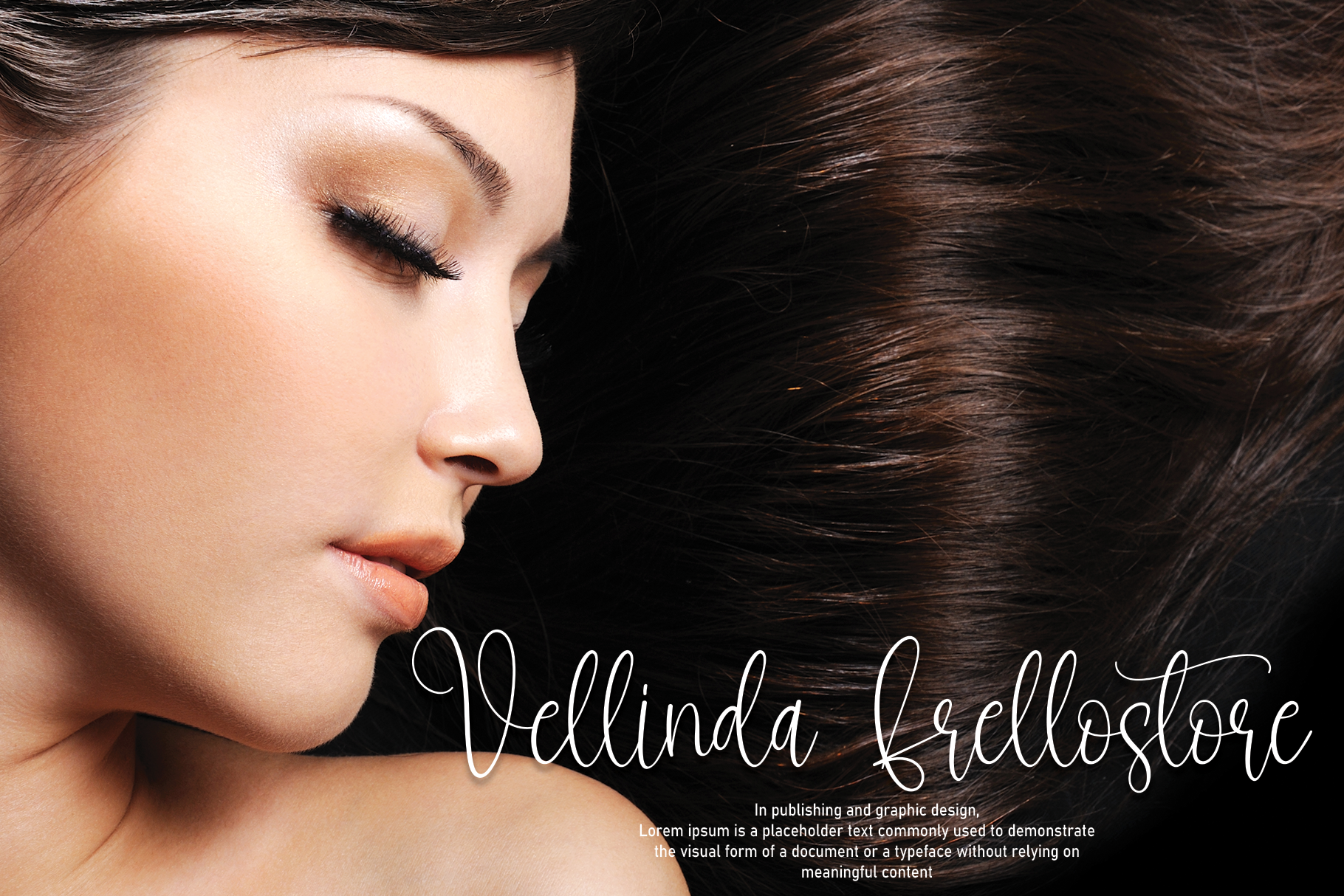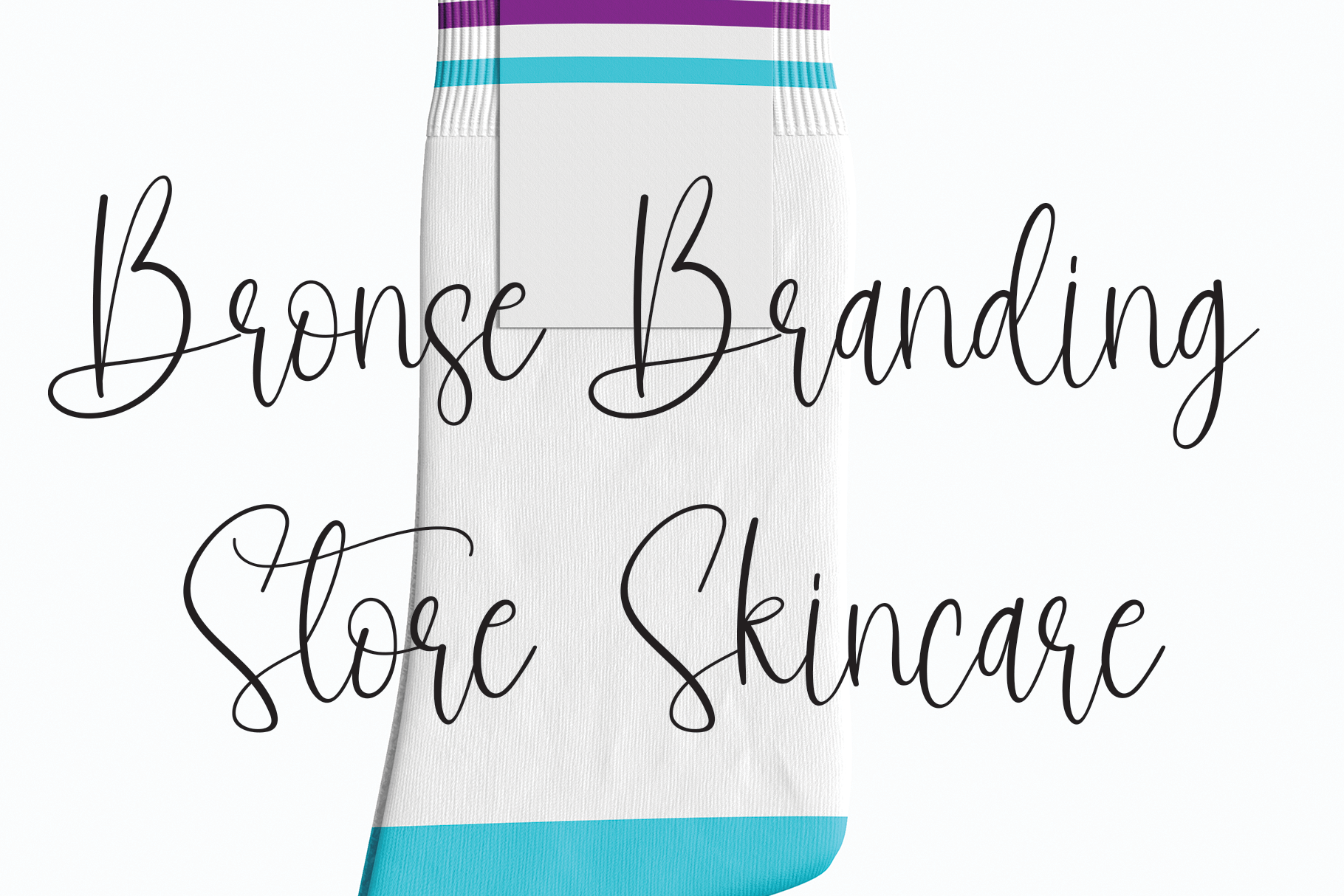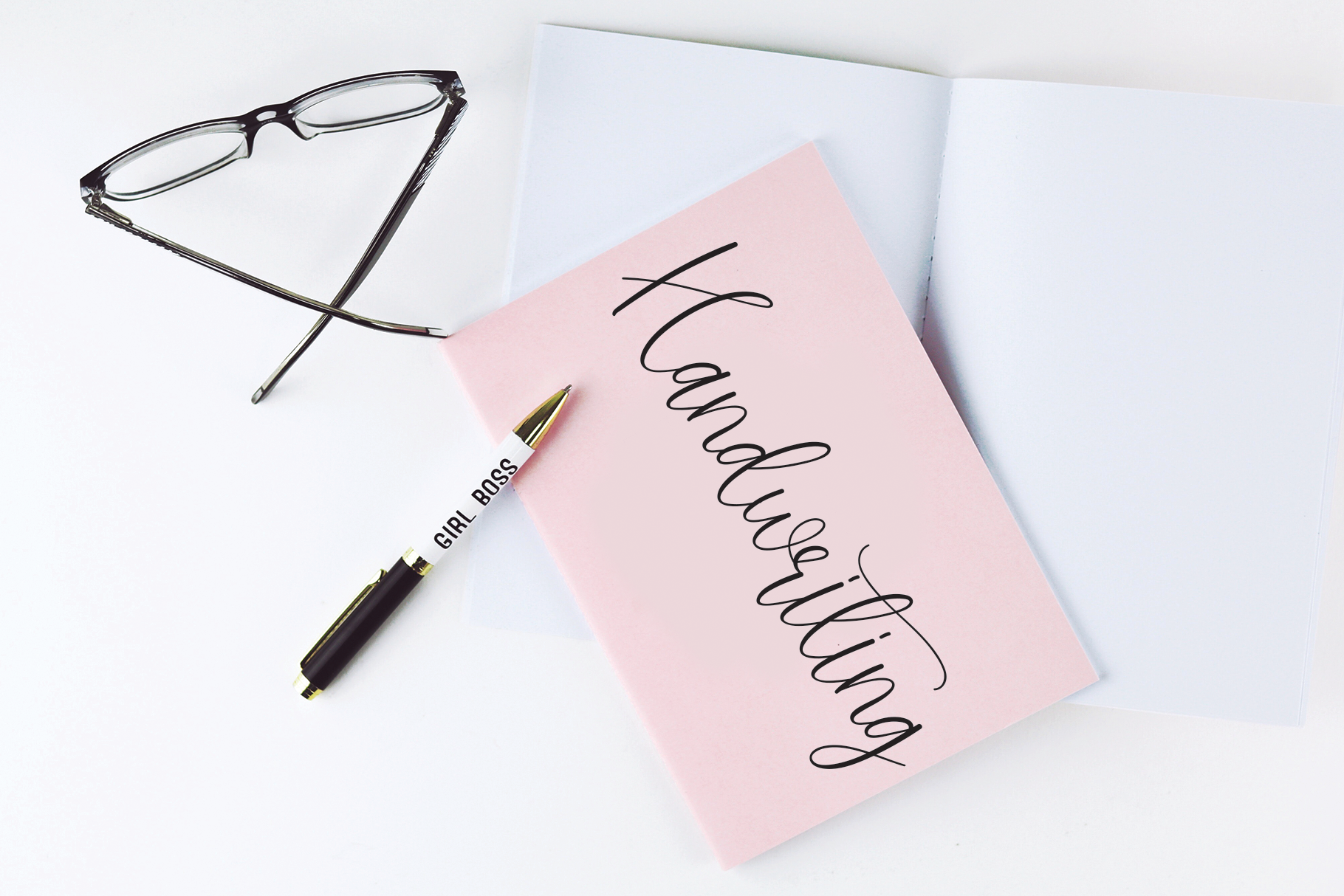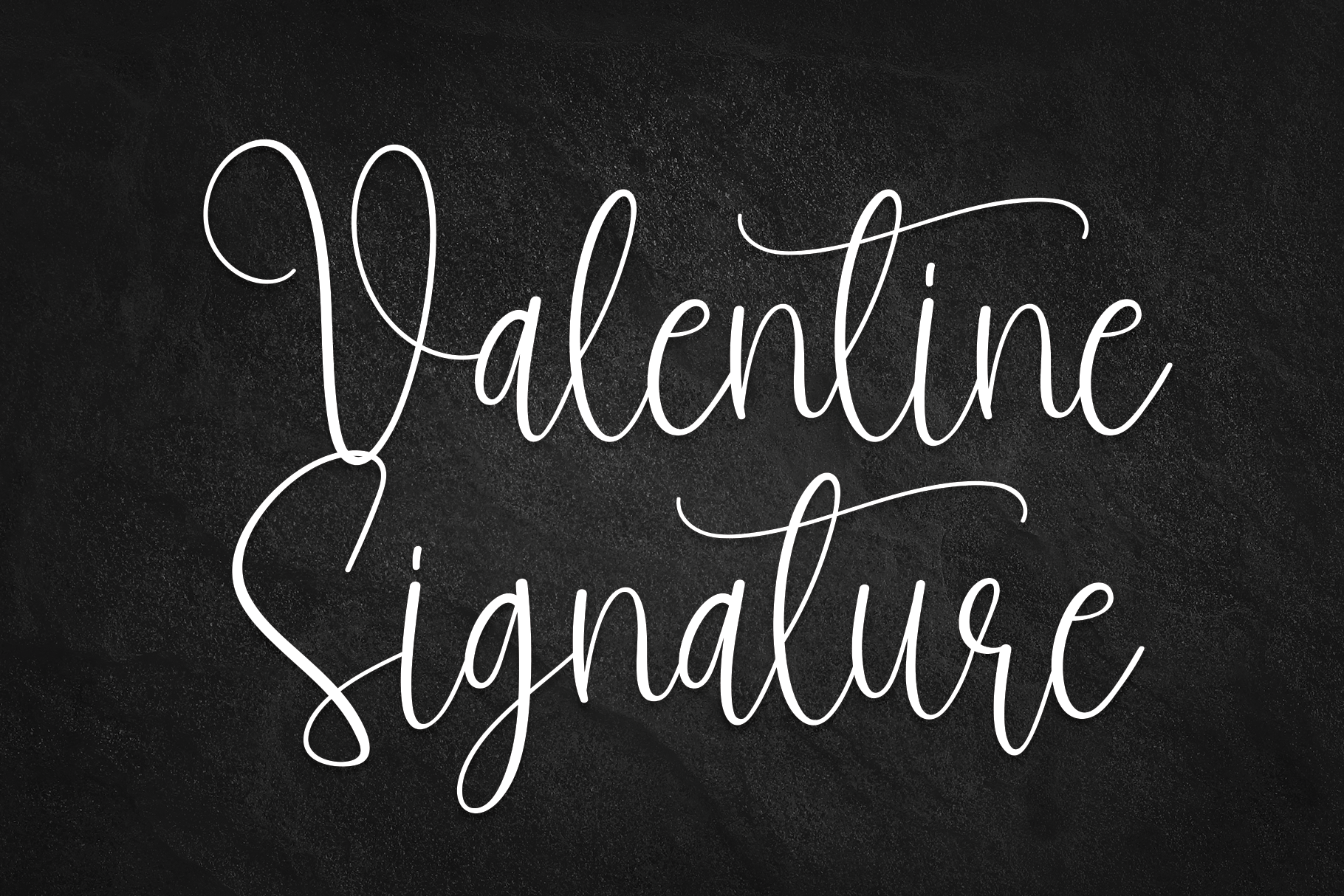
Sometime Signature Font
It’s a sweet and cursive handwritten font. This gentle font will look gorgeous on a variety of design ideas. It will add a joyful and romantic touch to each of your projects!
the latest style letters are perfect for wall displays, wedding invitations, social media post logos, advertisements, product packaging, product designs, labels, photography, watermarks, invitations, stationery, and any project that requires taste handwriting.